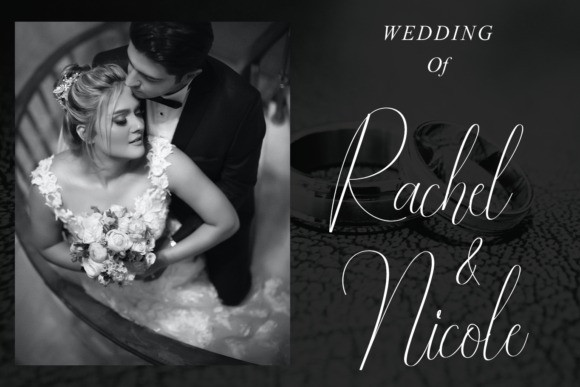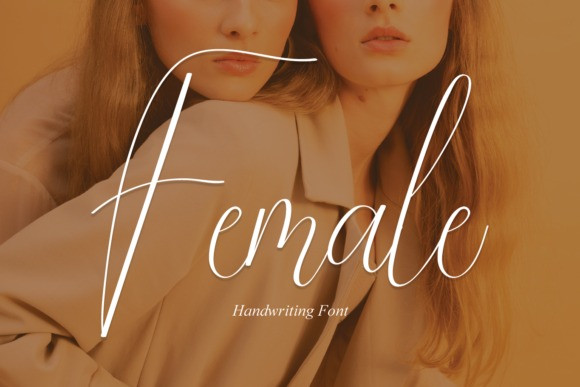
Female Font
Female Font is a beautiful and refined script font. It has a classy, elegant, and modern look that can be used for logos, branding, invitations, stationery, wedding designs, social media posts, and much more!